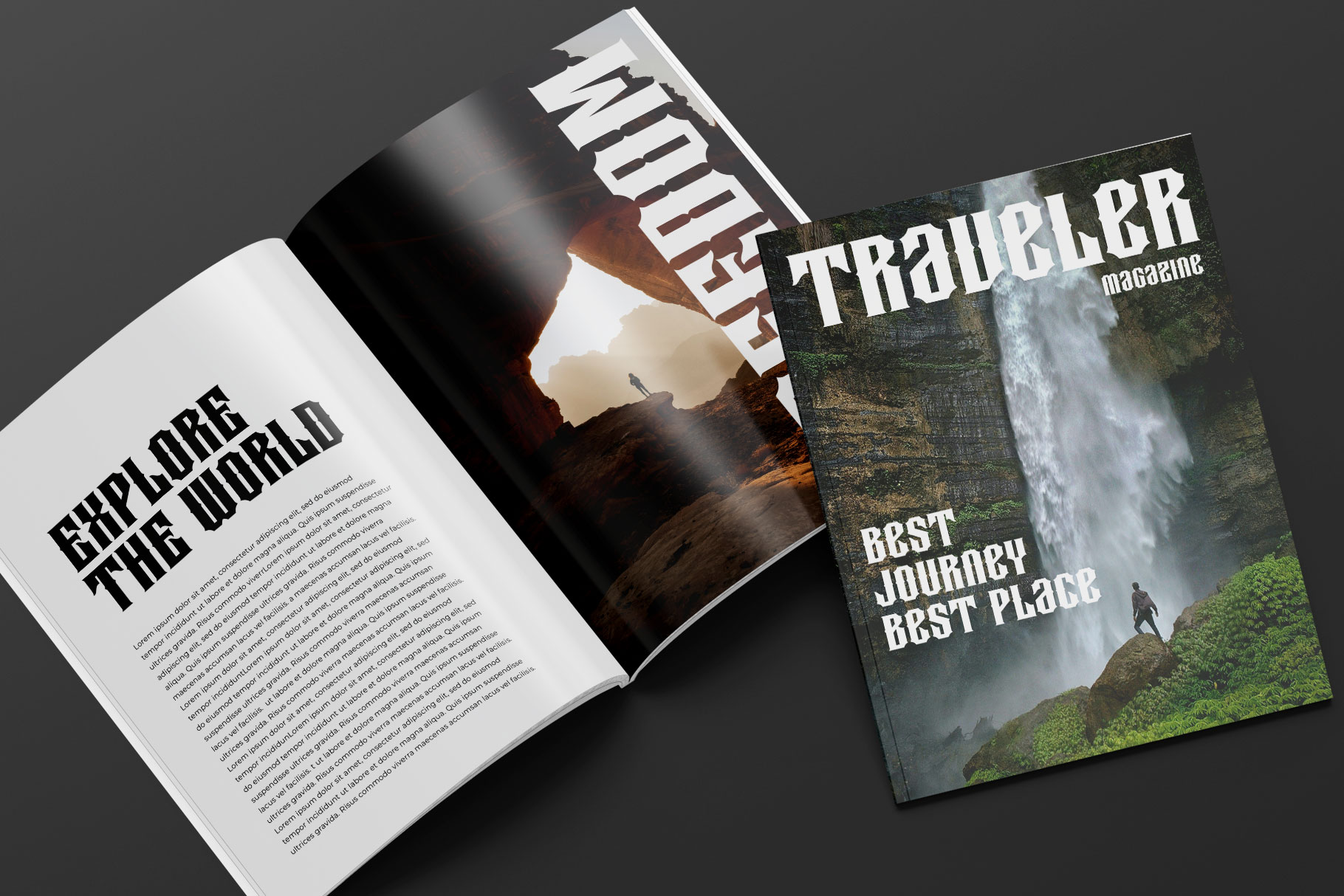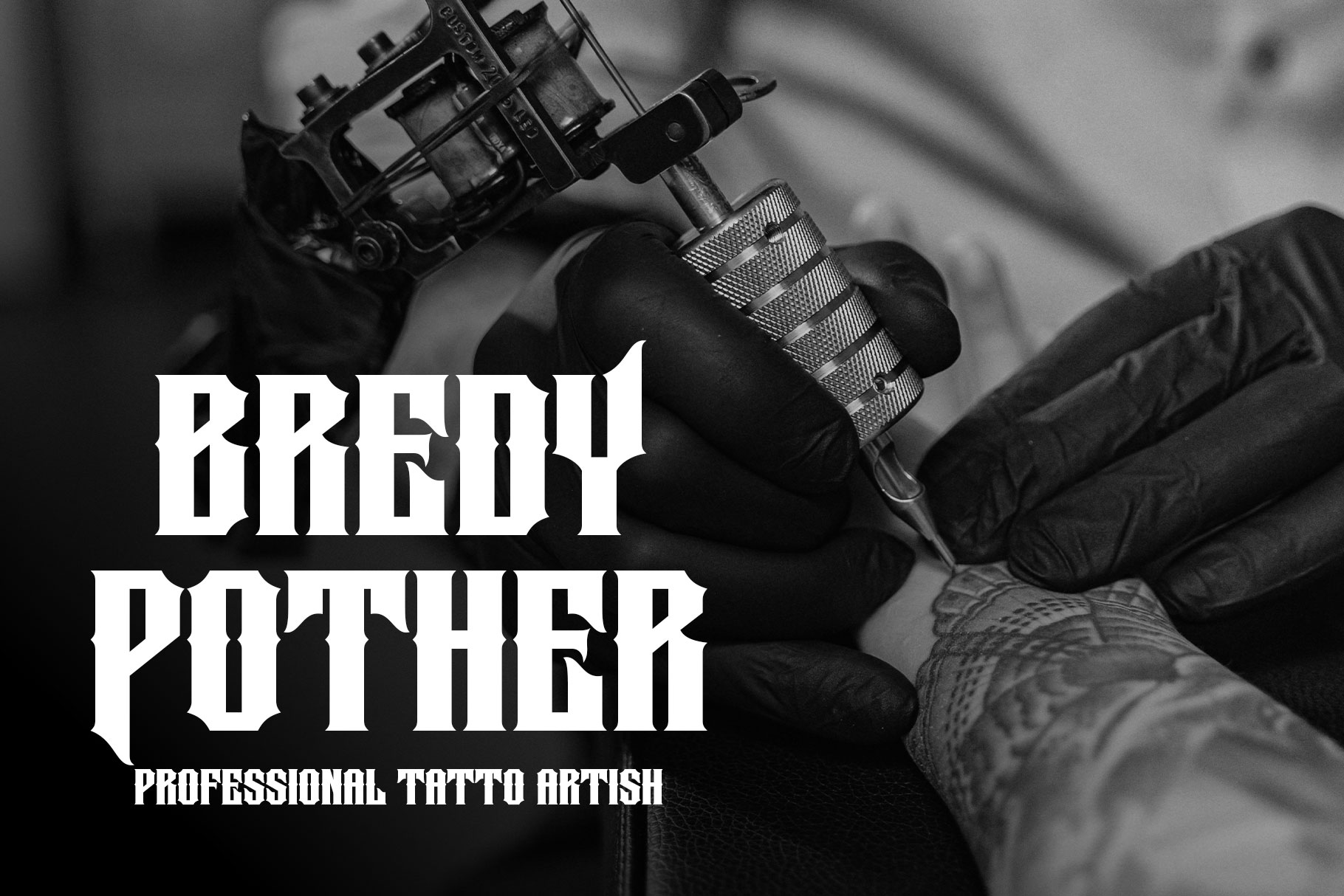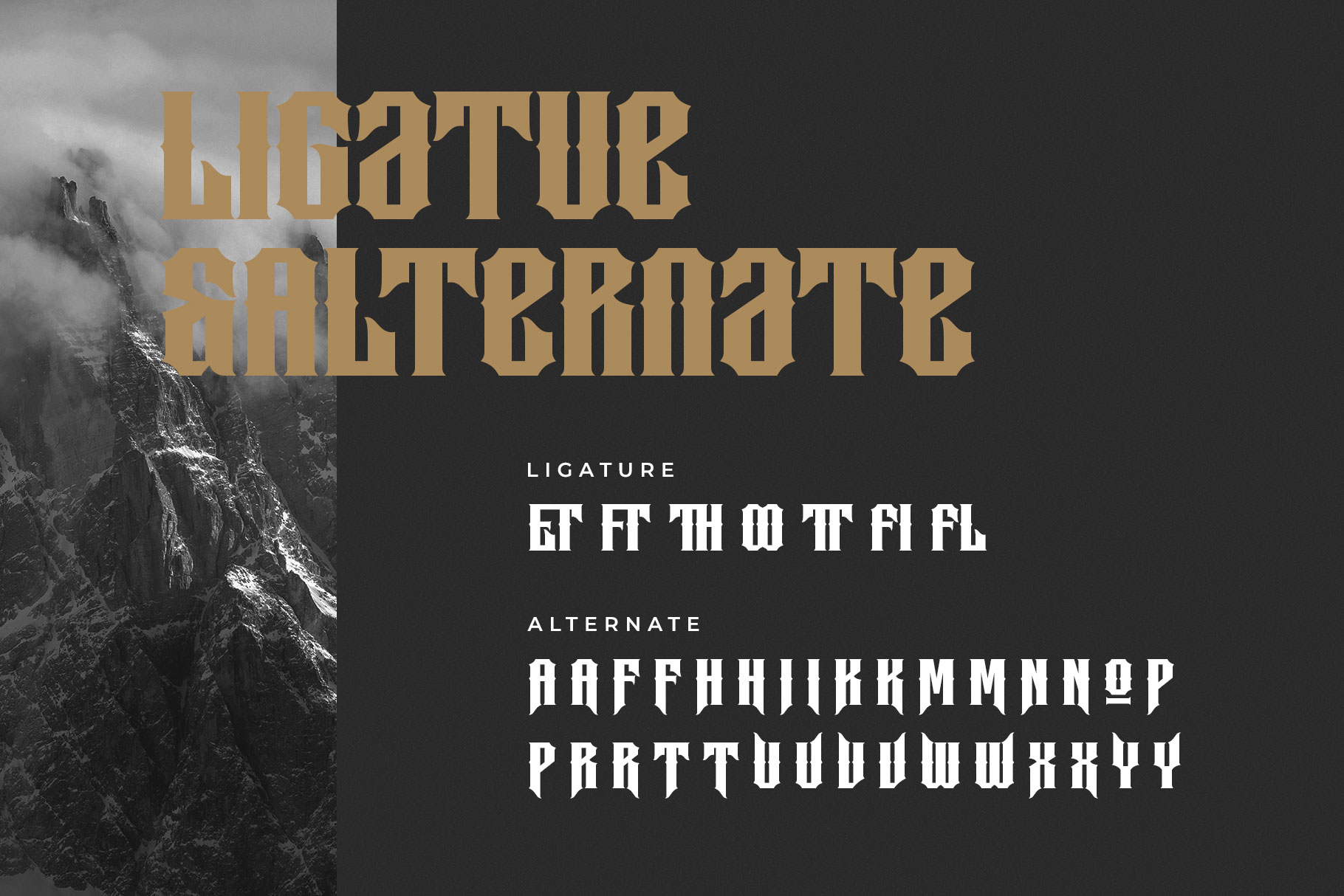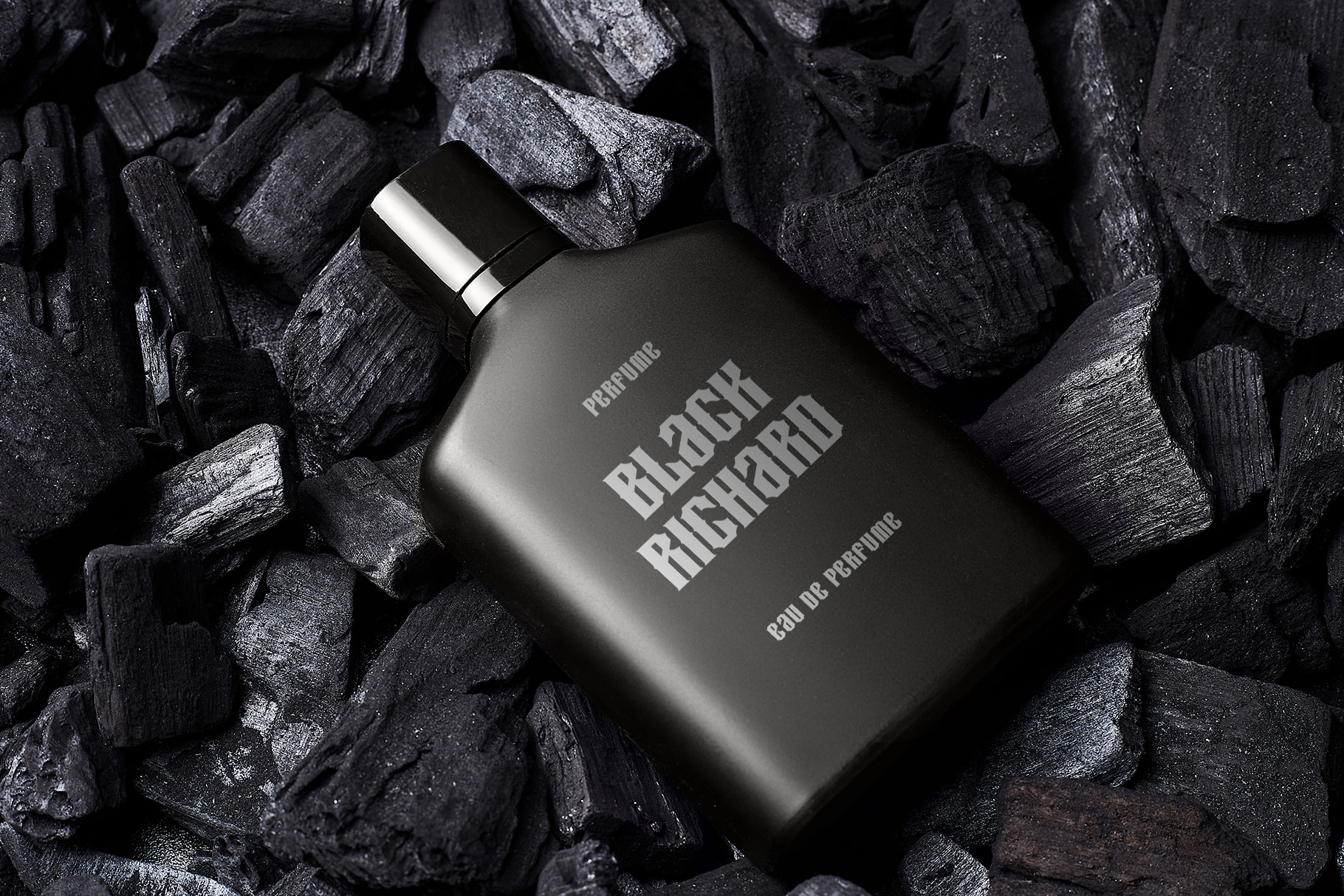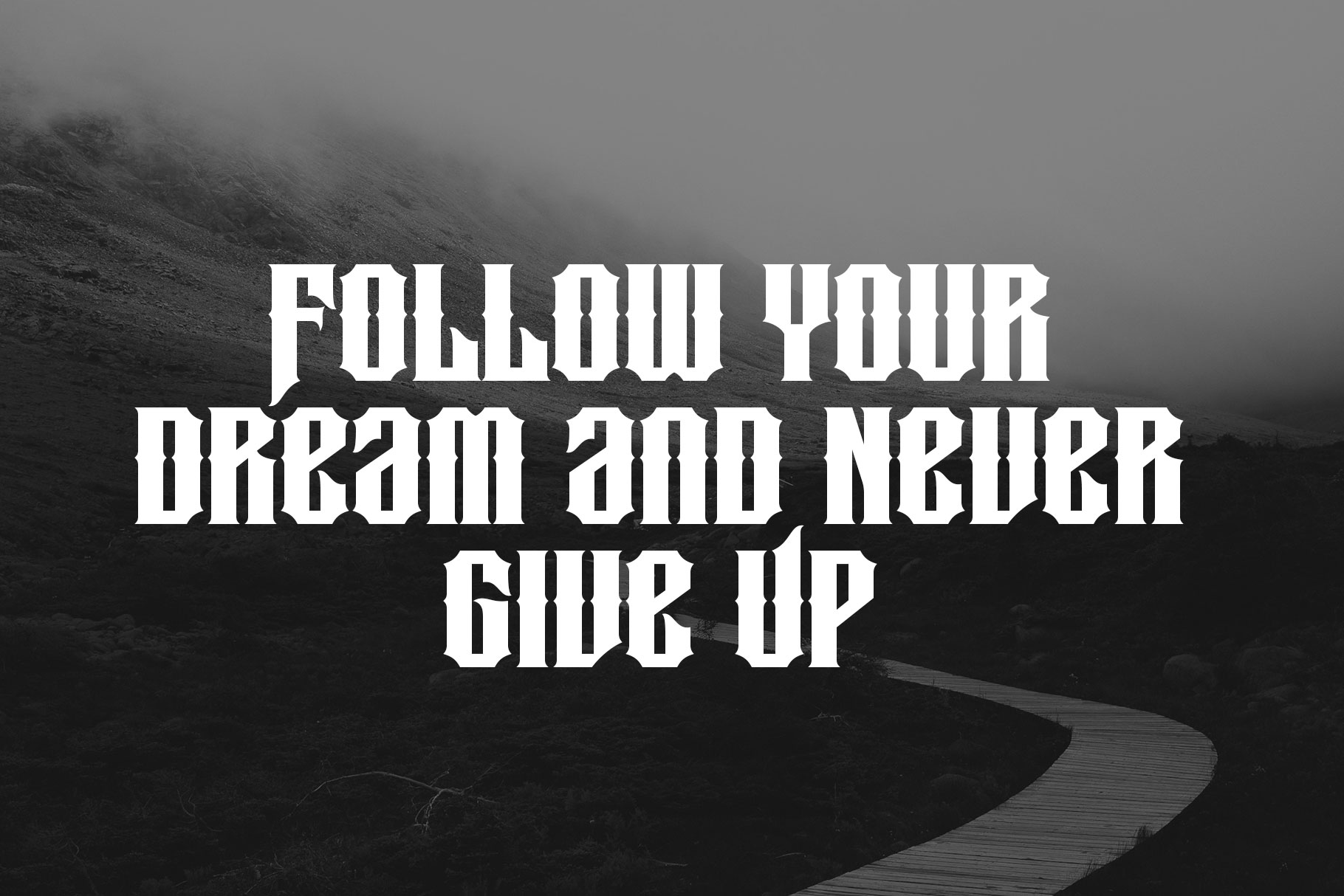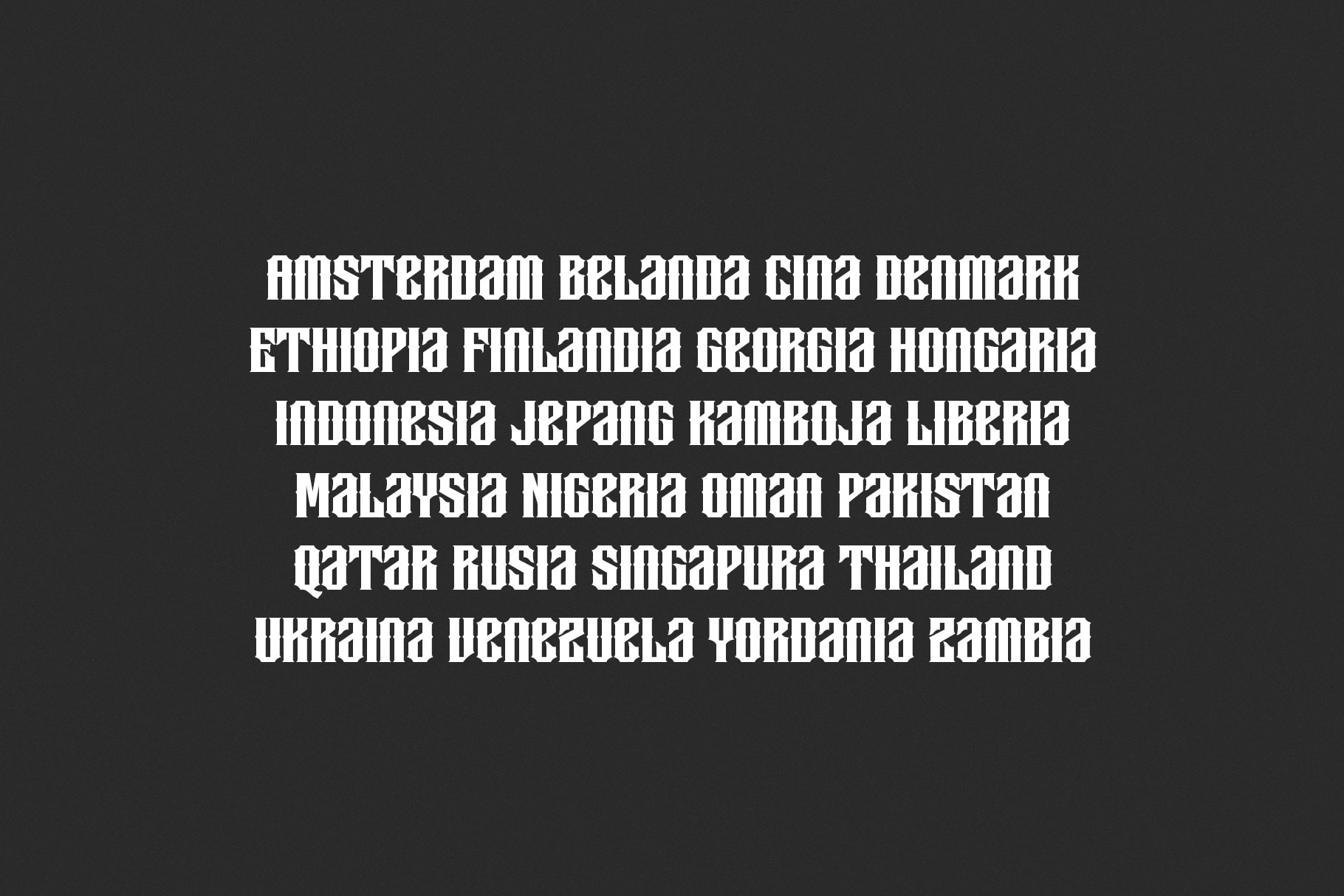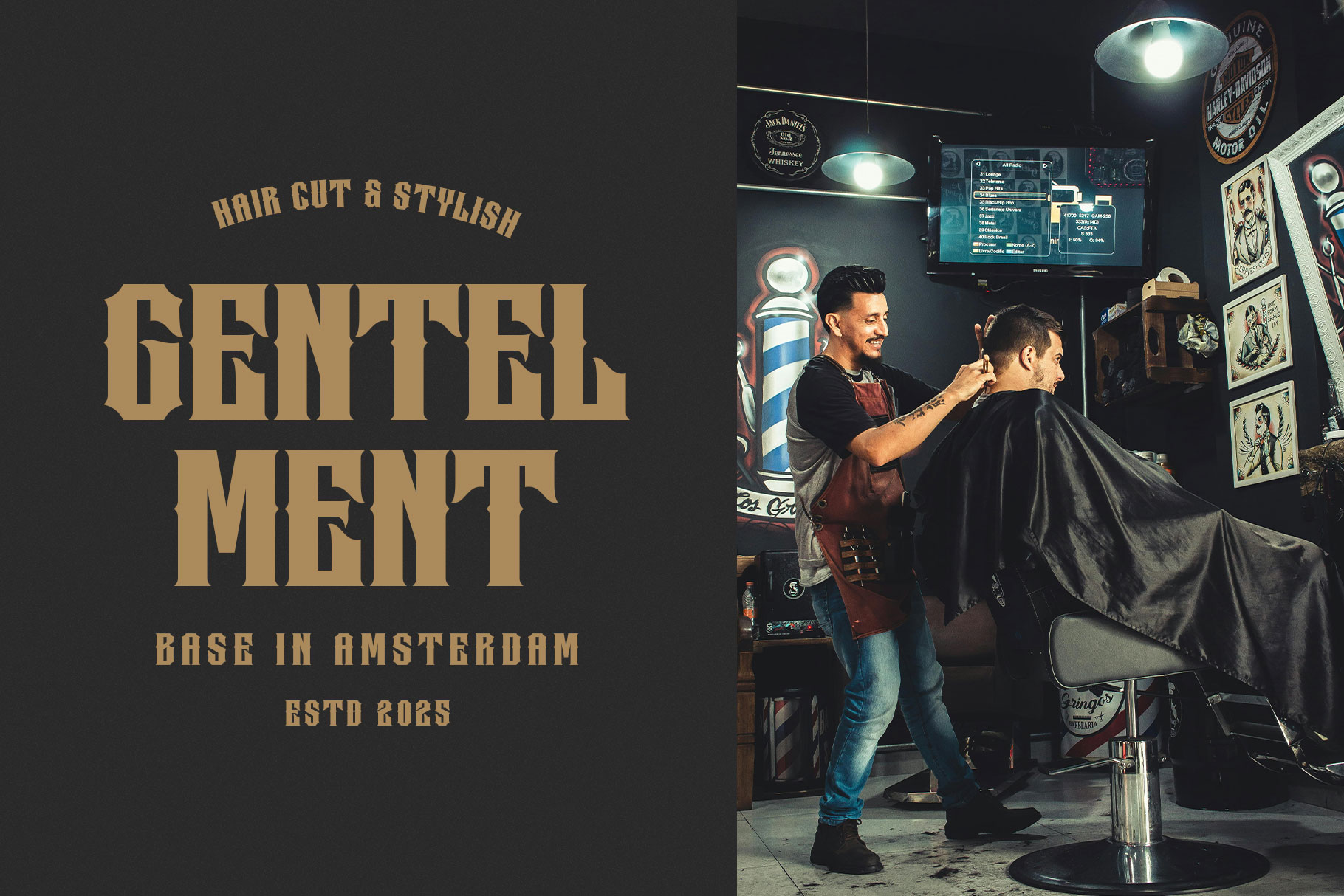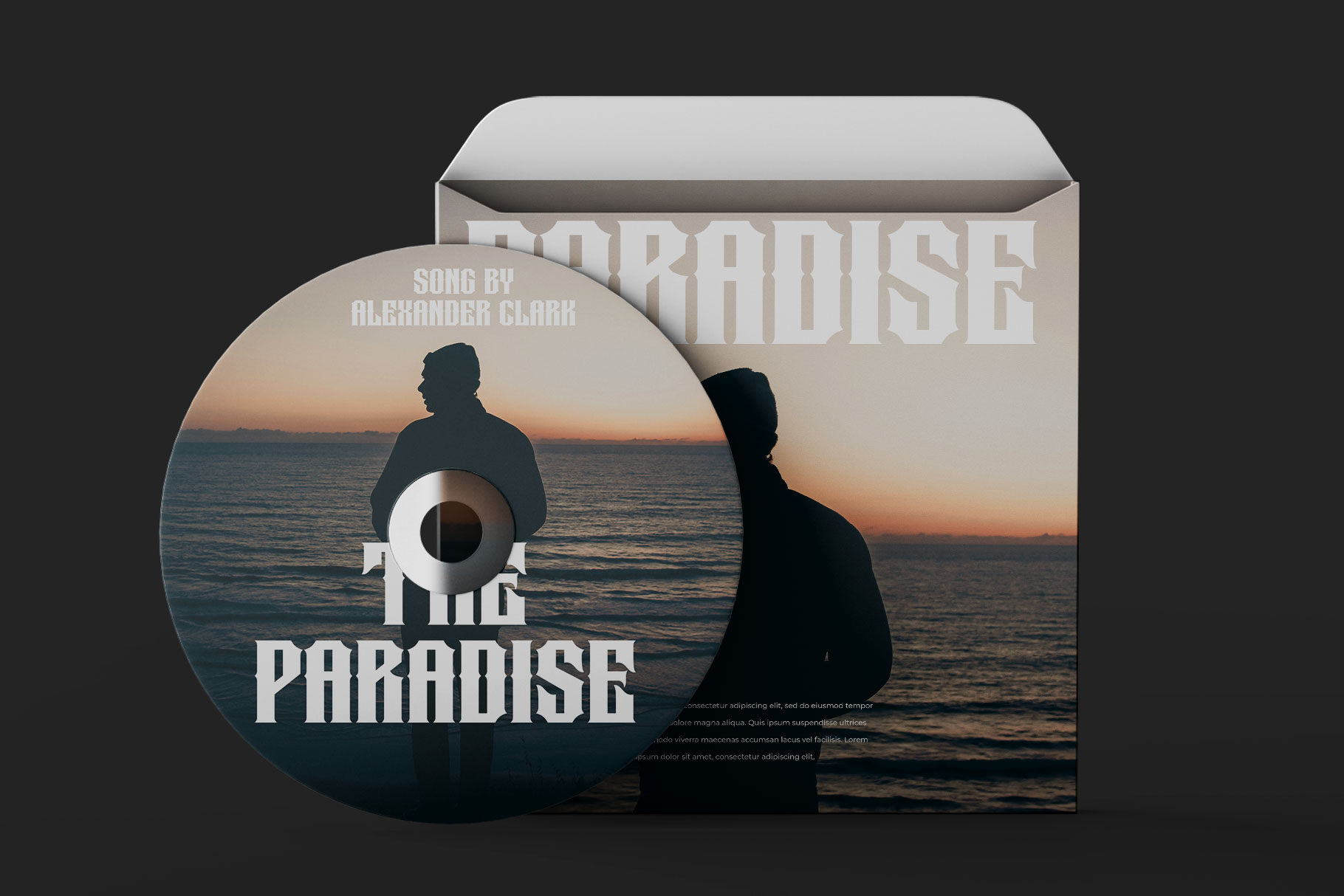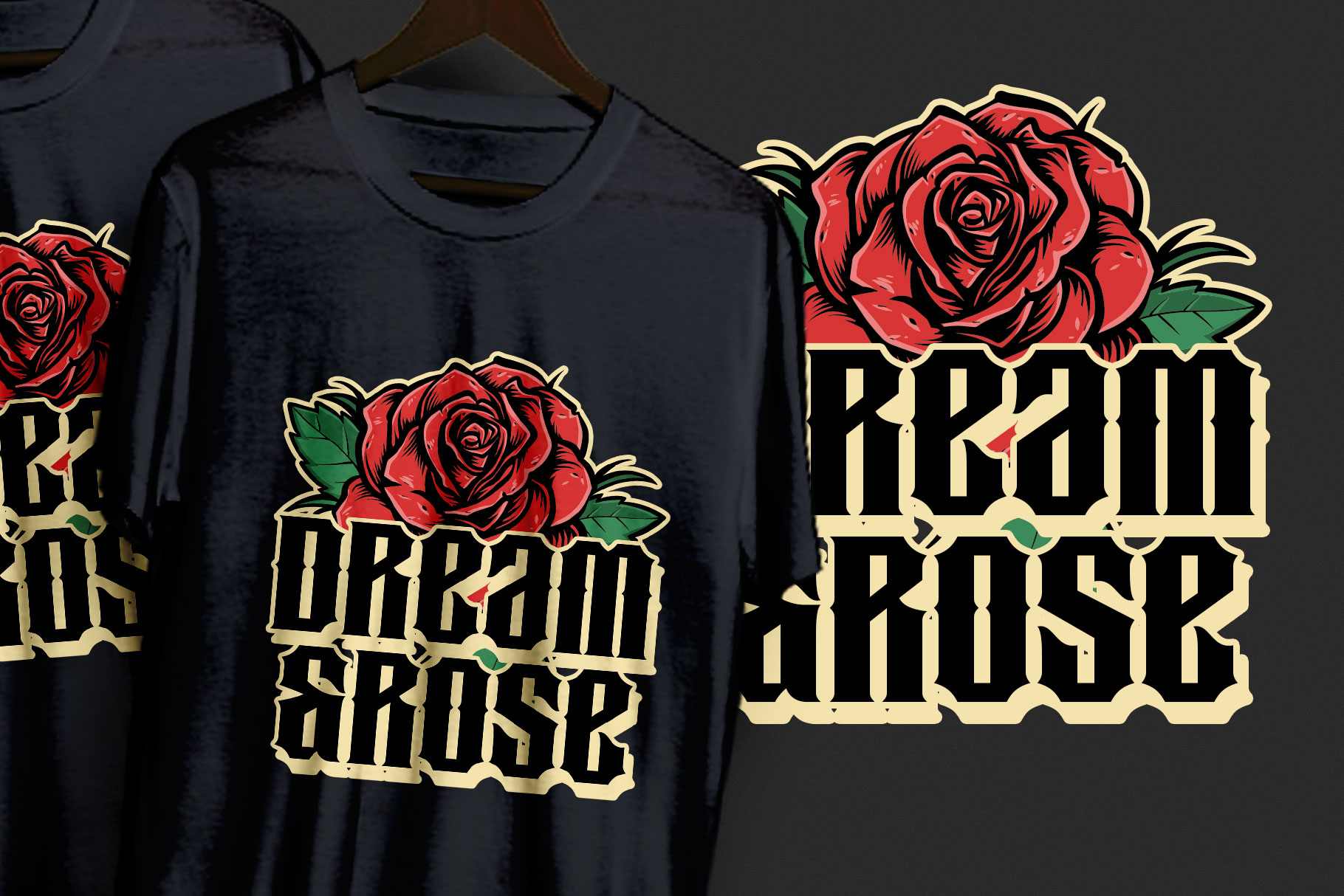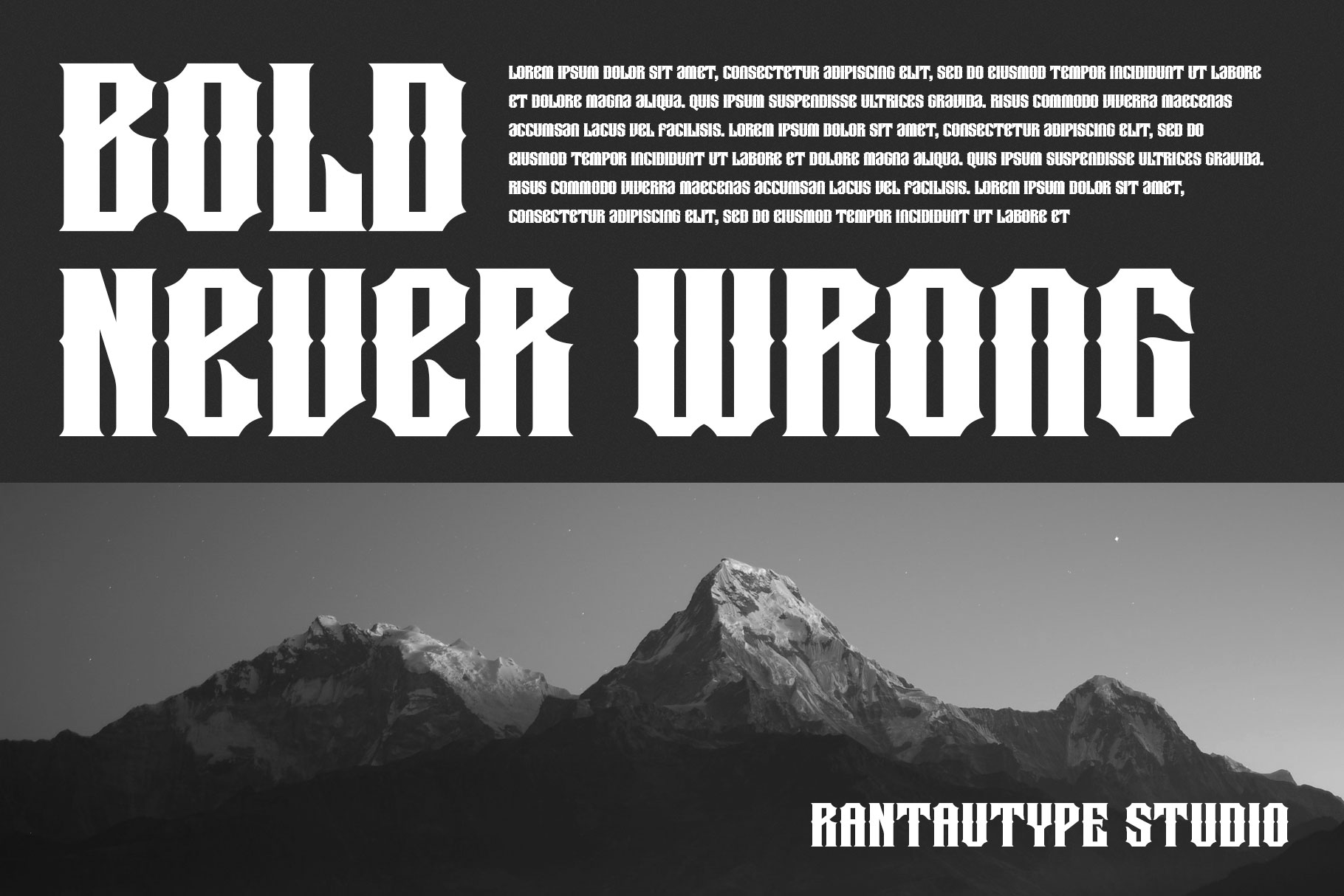
Gurend Gothic Font
Gurend is gothic font captures a dramatic and historic spirit, inspired by medieval manuscripts and classic blackletter typography. Gurend is a perfectly choice for any creative endeavor, creating, modern, lifestyle design such as logotype, title, cover, branding, invitations, wedding designs, display and magazine, social media posts, advertisements, printed quotes, product packaging, corporate brand, product designs, labels, photography, watermarks, special events and any other project with gothic touch.